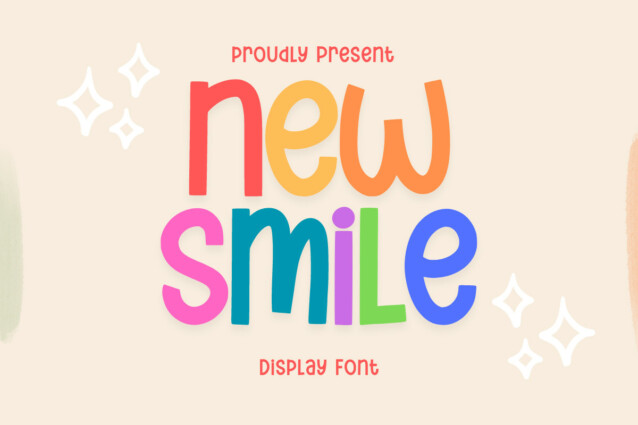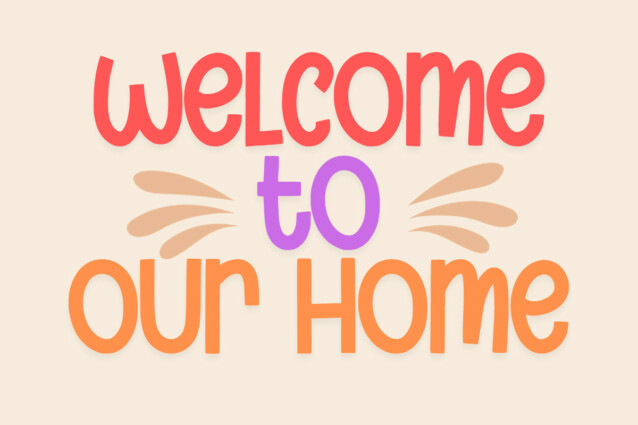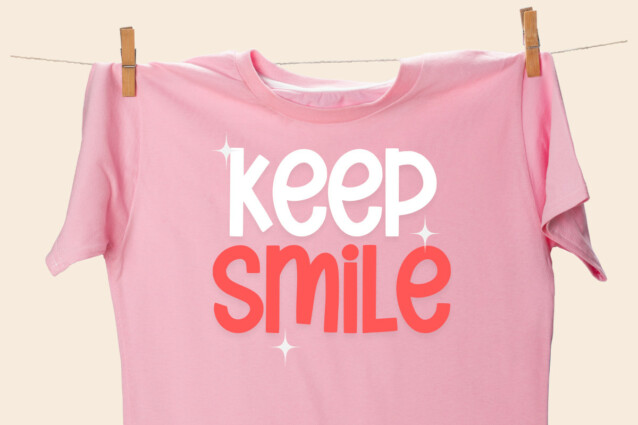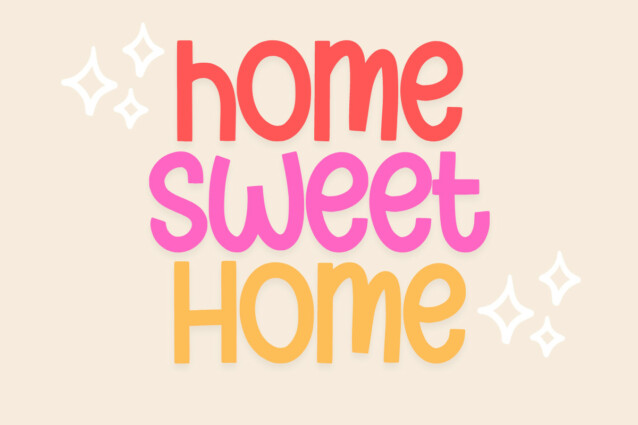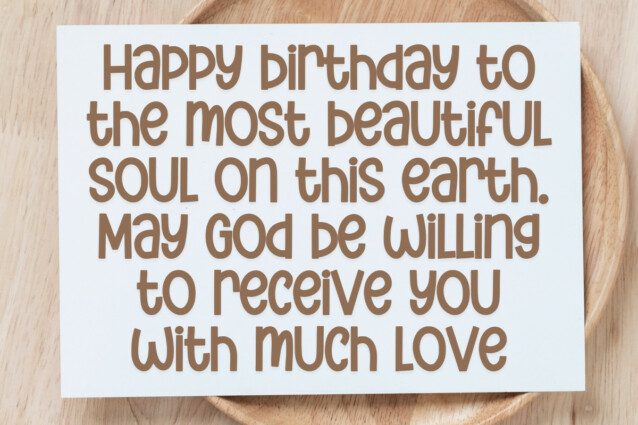
New Smile Display Font
New Smile Display Font is a fun, casual-looking display font. No matter the topic, this font will be an incredible asset to your fonts’ library, as it has the potential to elevate any creation.